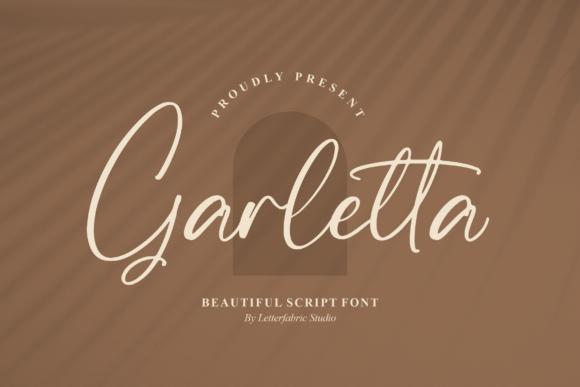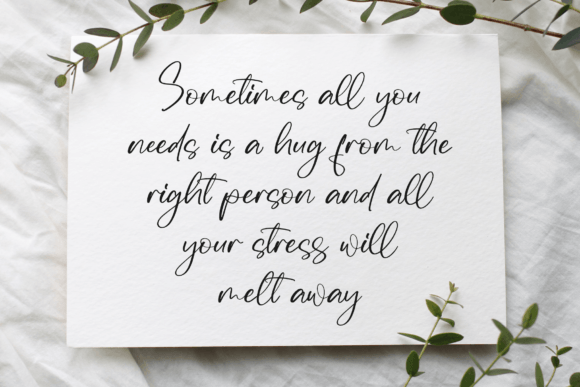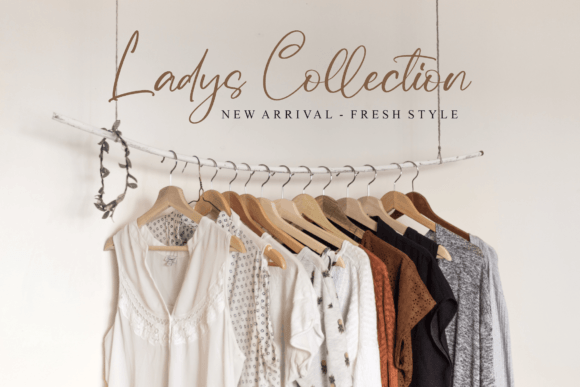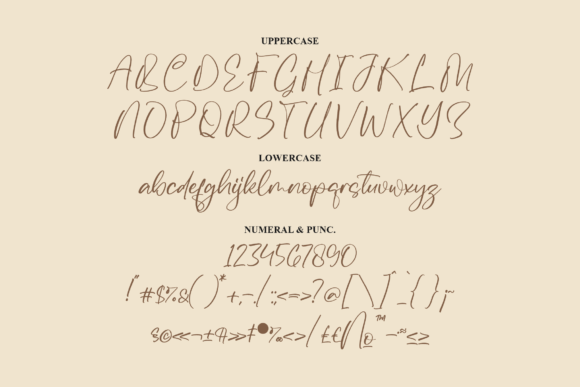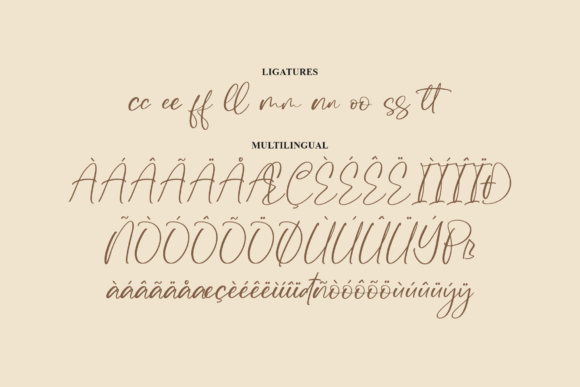
About Garletta Font
Garletta is an exquisite script font that lends a touch of elegance to a myriad of creative projects. Whether you’re working on logos, branding initiatives, homeware designs, product packaging, coffee mugs, inspiring quotes, eye-catching posters, stylish shopping bags, trendy t-shirts, captivating book covers, sophisticated name cards, inviting invitation cards, heartwarming greeting cards, chic labels, professional photography, subtle watermarks, or special events, Garletta is the perfect choice to infuse your designs with a beautiful script aesthetic.
With its graceful curves and fluid strokes, Garletta adds a sense of sophistication and charm to any visual project. The font is meticulously crafted to convey a timeless and classic quality, making it versatile for a wide range of applications. Whether you’re creating a brand identity, enhancing product packaging, or designing promotional materials, Garletta’s versatility makes it an ideal companion for all your creative endeavors.
Imagine your logo adorned with the artistic flair of Garletta, instantly capturing attention and leaving a lasting impression. Picture homeware designs that exude a sense of refinement, product packaging that stands out on the shelves, or coffee mugs that become cherished possessions. Garletta transforms mundane quotes into inspiring statements, posters into works of art, and shopping bags into stylish accessories.
T-shirts adorned with Garletta become fashion statements, while book covers acquire an air of sophistication that beckons readers. Name cards and invitation cards designed with Garletta become memorable keepsakes, and greeting cards convey heartfelt messages with an added touch of elegance. Labels on your products take on a new level of professionalism, and your photography receives an artistic boost with Garletta’s distinctive script.
The font also lends itself seamlessly to watermarking, subtly marking your creations with a signature style. Special events, whether they are weddings, anniversaries, or corporate functions, acquire an extra layer of charm with Garletta gracing the invitations and other event materials.
In essence, Garletta is more than just a font; it’s a creative companion that elevates your projects to new heights. With 400 words, the beauty and versatility of Garletta come to life, inviting you to explore the endless possibilities of this stunning script font in all your design endeavors.